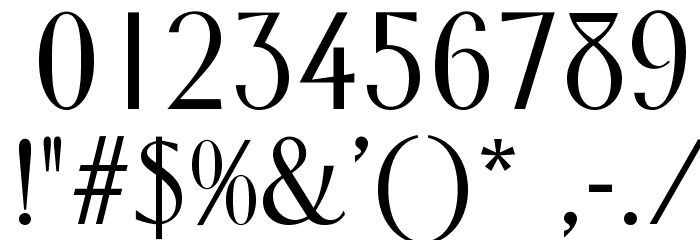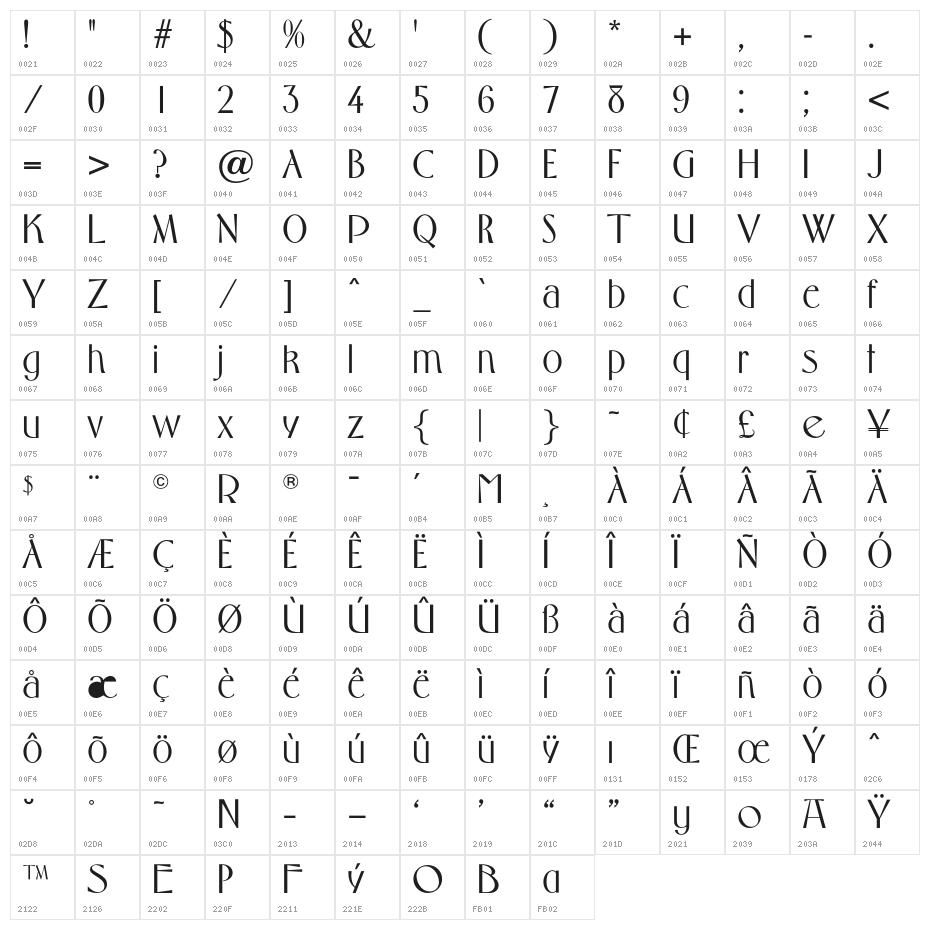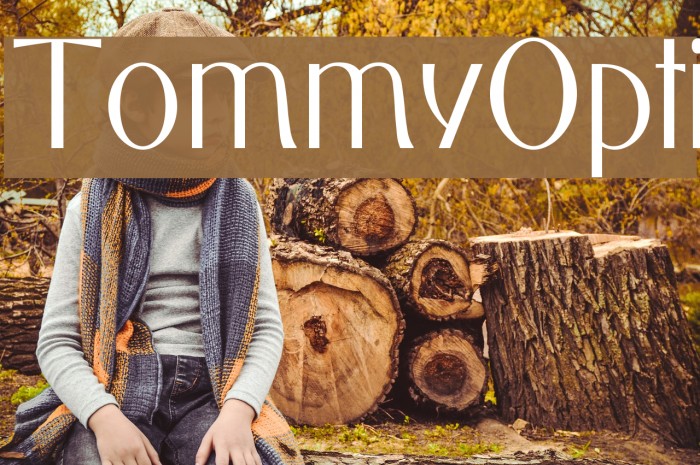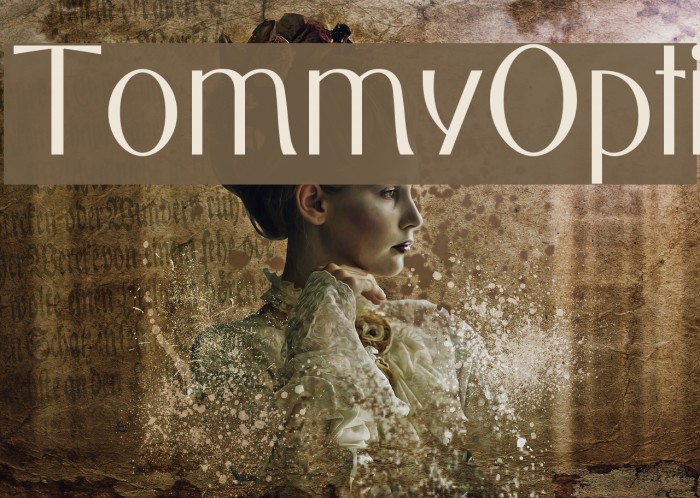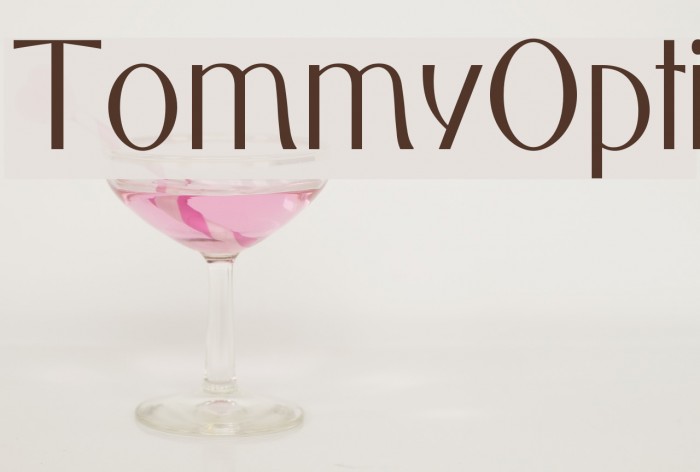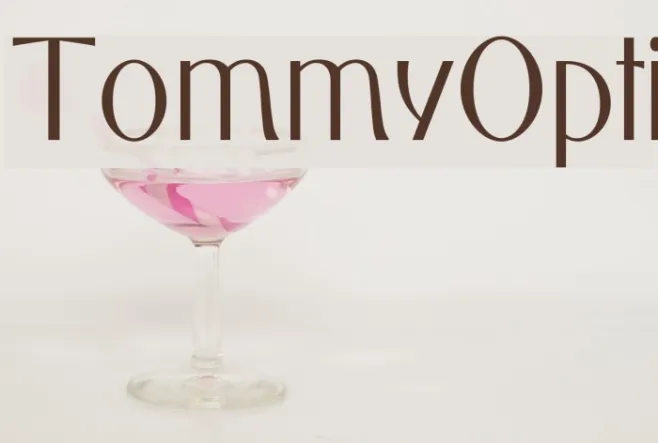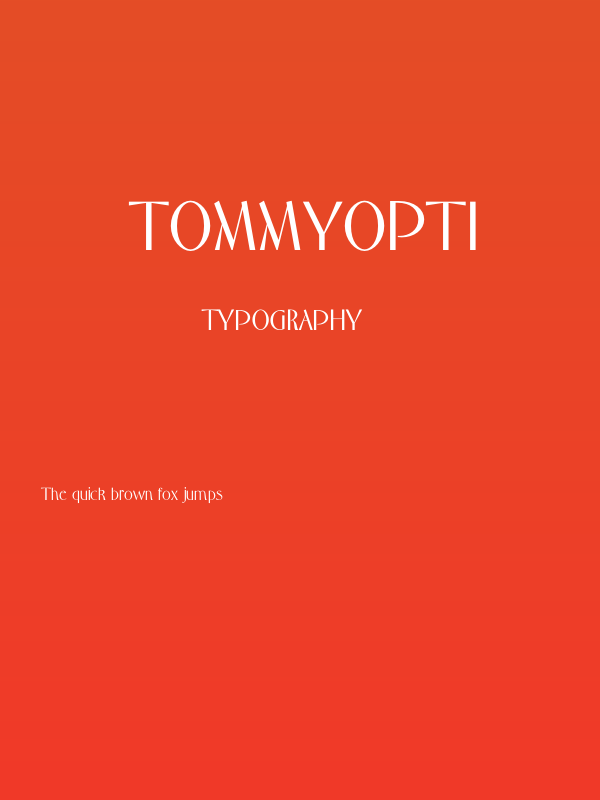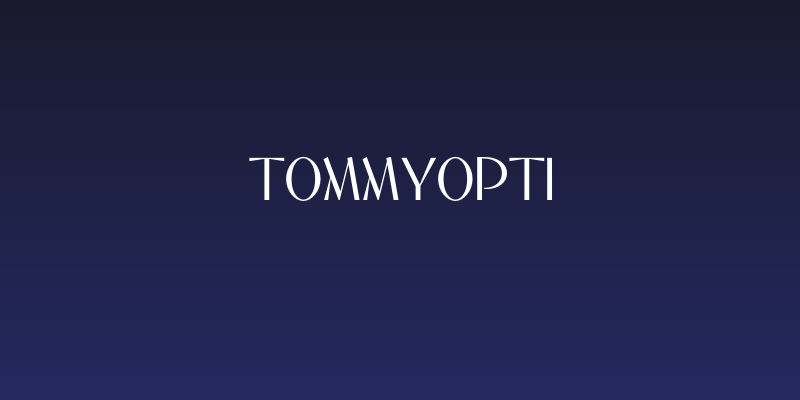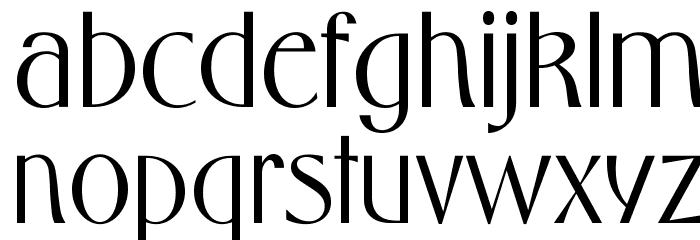
TommyOpti Font
TommyOpti Description
This font features a modern and elegant design with a distinct geometric influence. The uppercase letters are tall and slightly condensed, giving a sophisticated and sleek appearance. The lowercase letters maintain a consistent style with smooth curves and clean lines. The numerals are well-proportioned, complementing the overall aesthetic. Special characters are designed with the same attention to detail, ensuring a cohesive look across all glyphs. The font's unique style makes it suitable for a variety of design applications, offering versatility and a contemporary feel.
| Use Case | Headlines, Logos, Editorial design |
| Proposed Projects | Ideal for branding, editorial design, advertising, and digital media projects. |